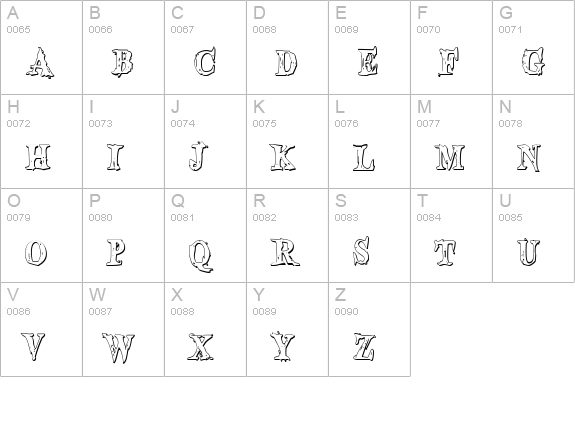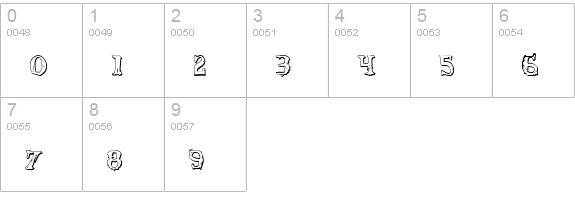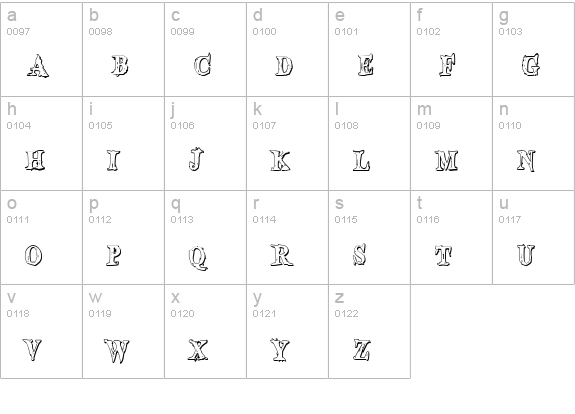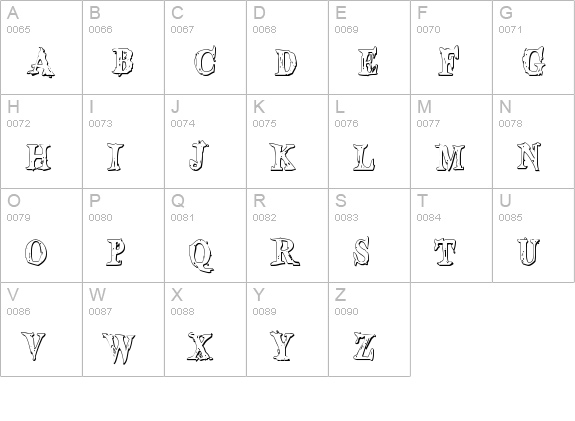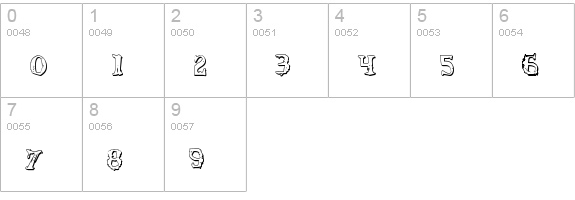
Blood Crow Shadow Condensed is a distinctive, condensed-width variant in the Blood typeface family \xE2\x80\x94 well suited to design and typography projects.
Blood Crow Shadow Condensed is a bold and striking display font that exudes a mysterious and edgy vibe. With its sharp angles and shadowed appearance, this font is perfect for creating eye-catching headlines, posters, and branding materials. The condensed design adds a sense of urgency and modernity to any project. What sets Blood Crow Shadow Condensed apart is not just its unique aesthetic, but also the fact that it is available for free download at FontsMarket.com. This means that designers and creatives can easily access this impactful font without any cost, making it a valuable addition to any font library. Whether you're working on a dark and dramatic design or looking to add a touch of intrigue to your project, Blood Crow Shadow Condensed is sure to make a bold statement. Download it today and unleash its powerful presence in your creations.